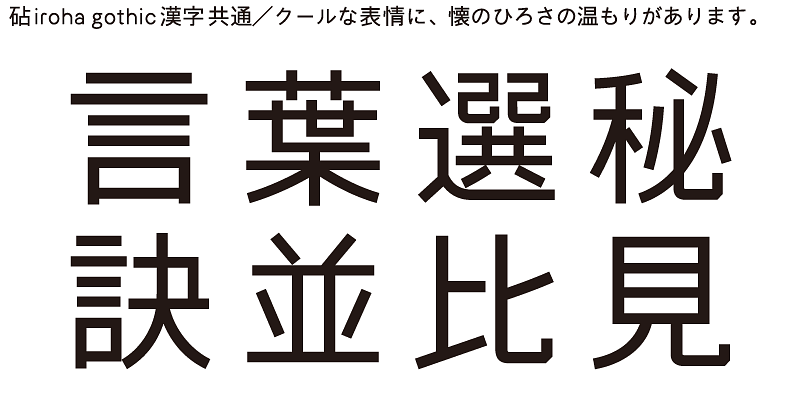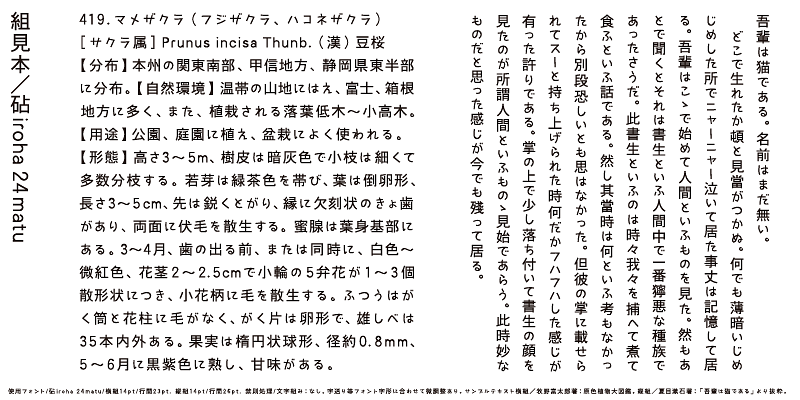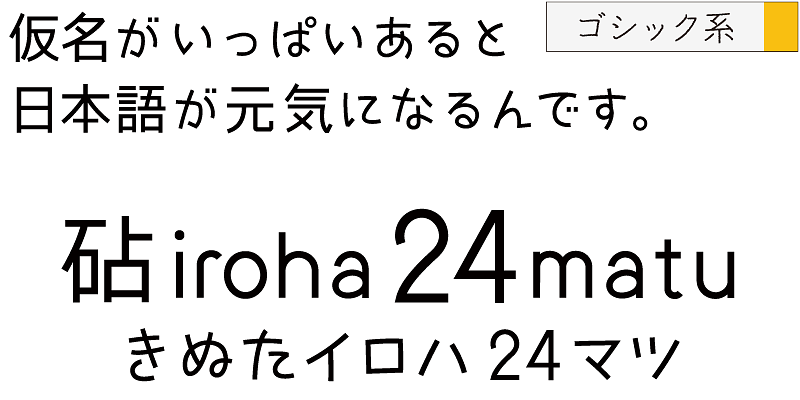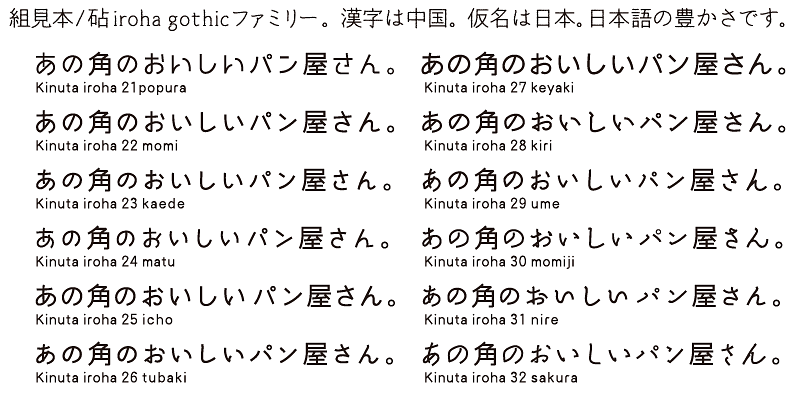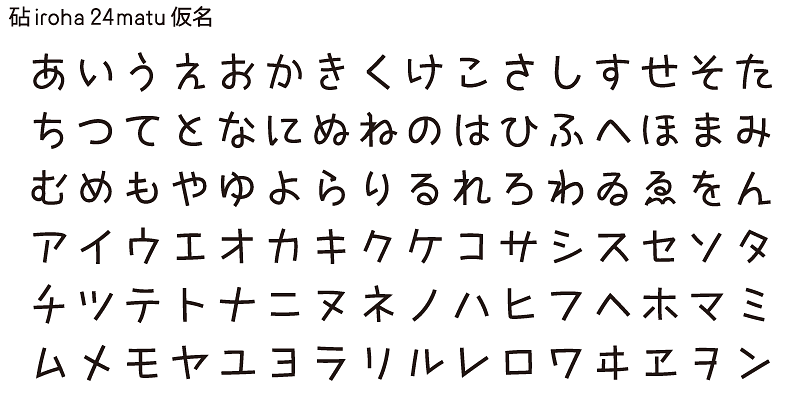
Iroha 24matu’s kana characters offer a friendly, fun, yet tasteful appearance.
The same Ideographic (kanji) characters are shared by all the Iroha variations. Kanji characters of Iroha are designed with linear strokes and simple structures. There are 12 kana variants.
One characteristic of the Japanese language is that it has kana syllabic characters. Kana characters were invented in Japan to represent sounds in Japanese and translate texts imported from China into Japanese. Kana characters are needed to create Japanese words and expressions from kanji/Chinese ideographic characters. While there may be ambiguities, these words and expressions exhibit the warmth and gentleness of the lives of people living in the small and densely populated land of Japan.
Kinuta Font Factory’s believes that kana characters are the origin of written words in Japanese, and we think that improving kana characters will make Japanese text more attractive. On average, 60% of Japanese text consists of kana characters – changing the shape of these characters changes the visual appearance of the text. The possibilities for typographic expression using simple, dynamic and curvilinear kana characters are vast, and the richness of Japanese text depends on kana characters. This is the reason why Kinuta Font Factory offers many variations of kana typefaces.